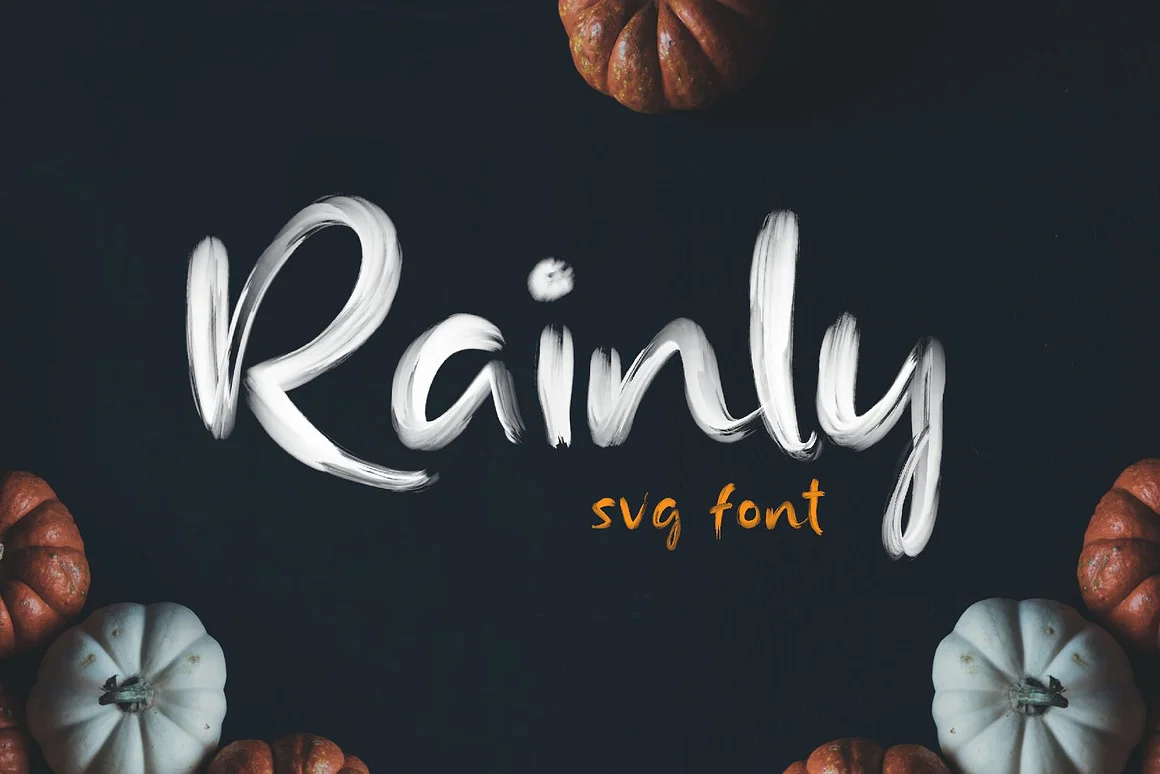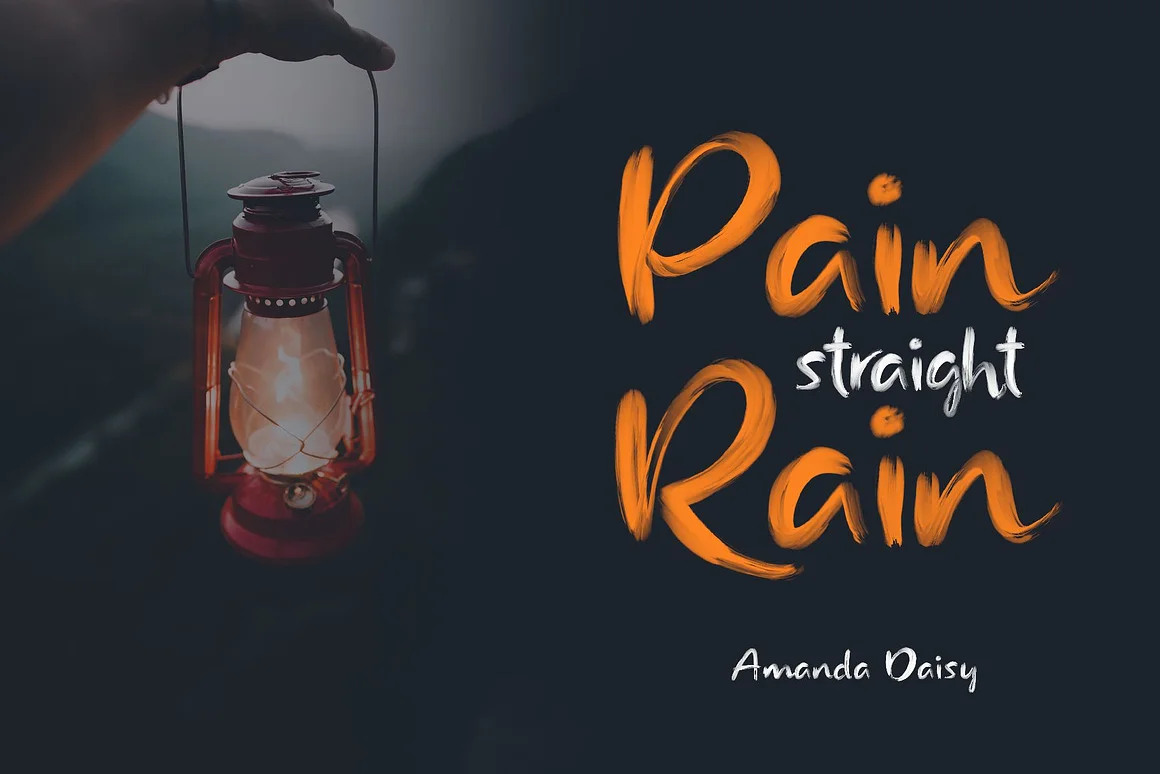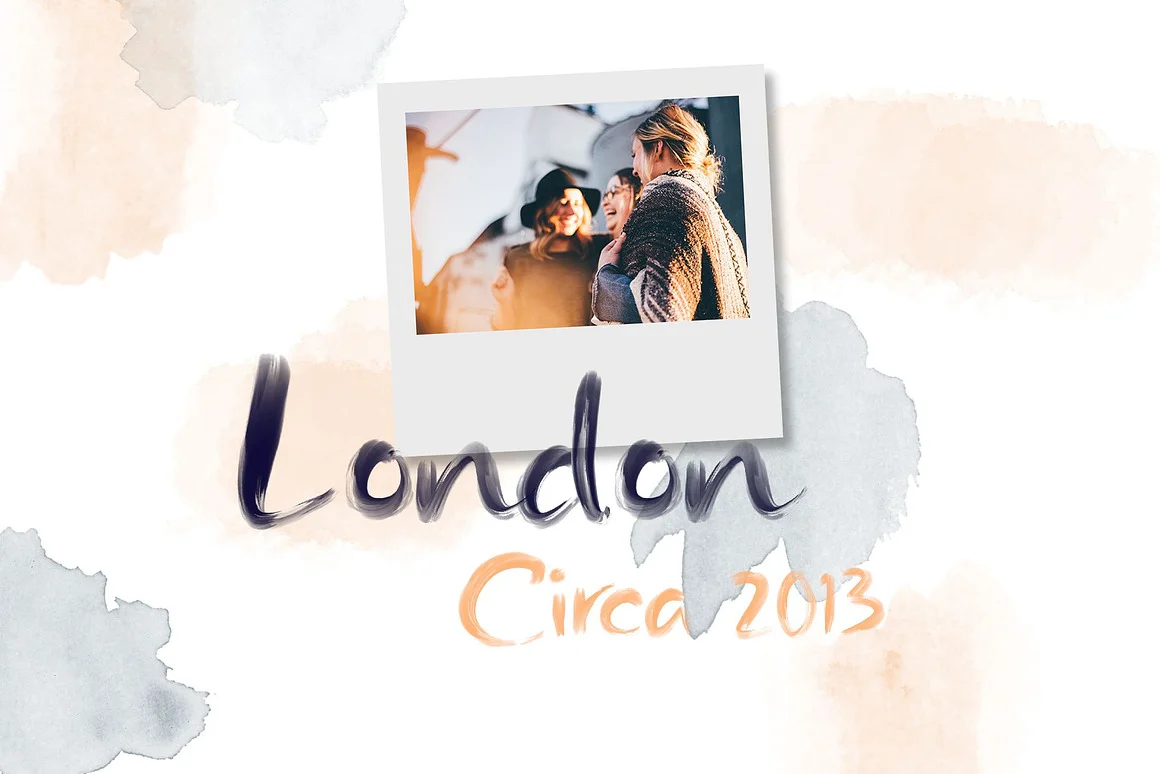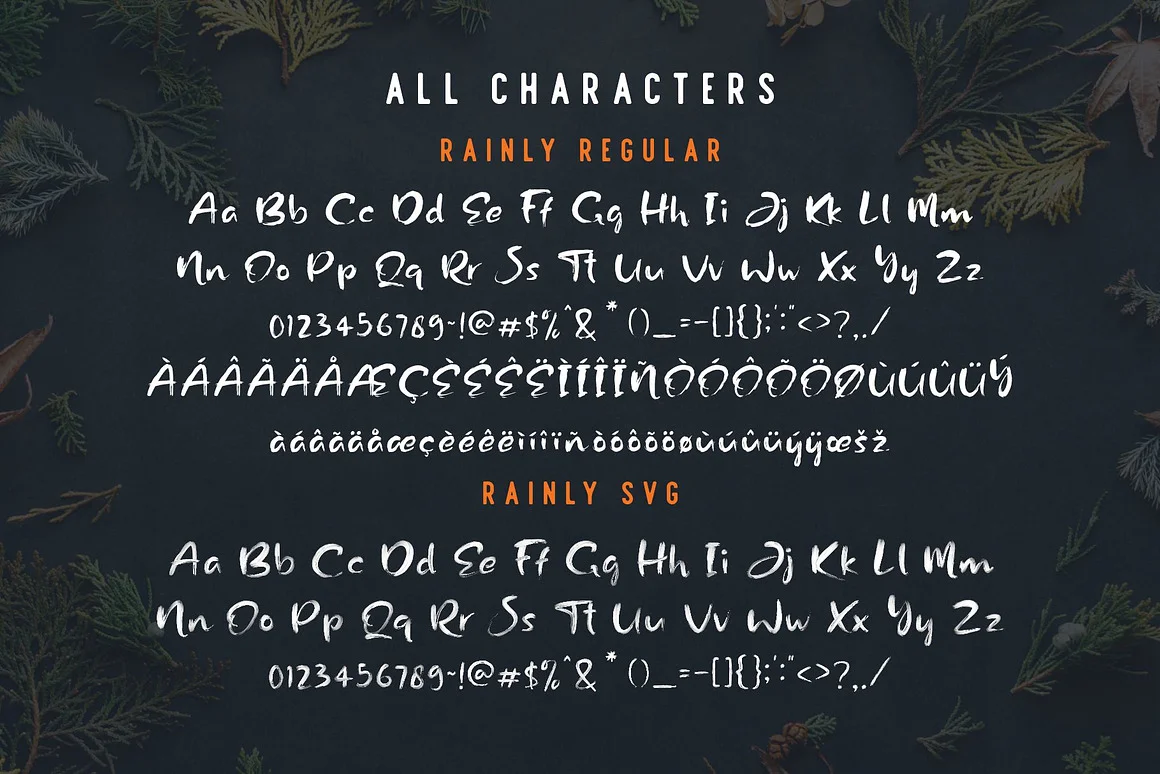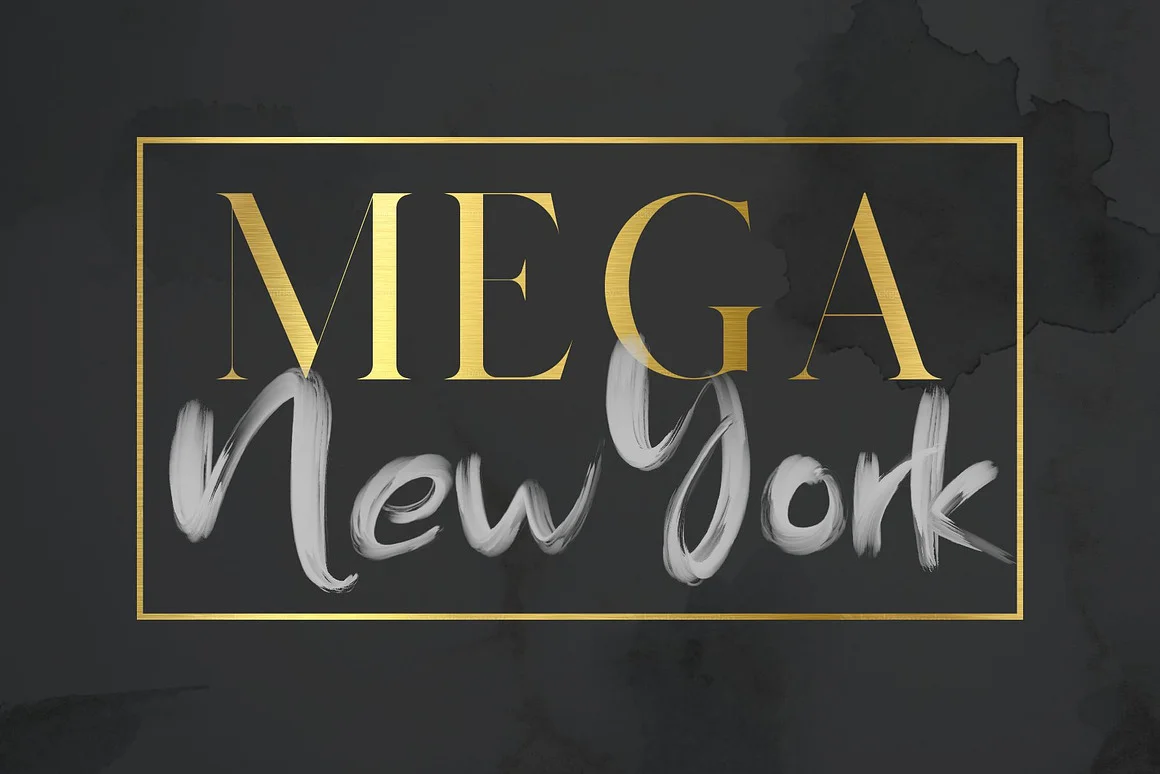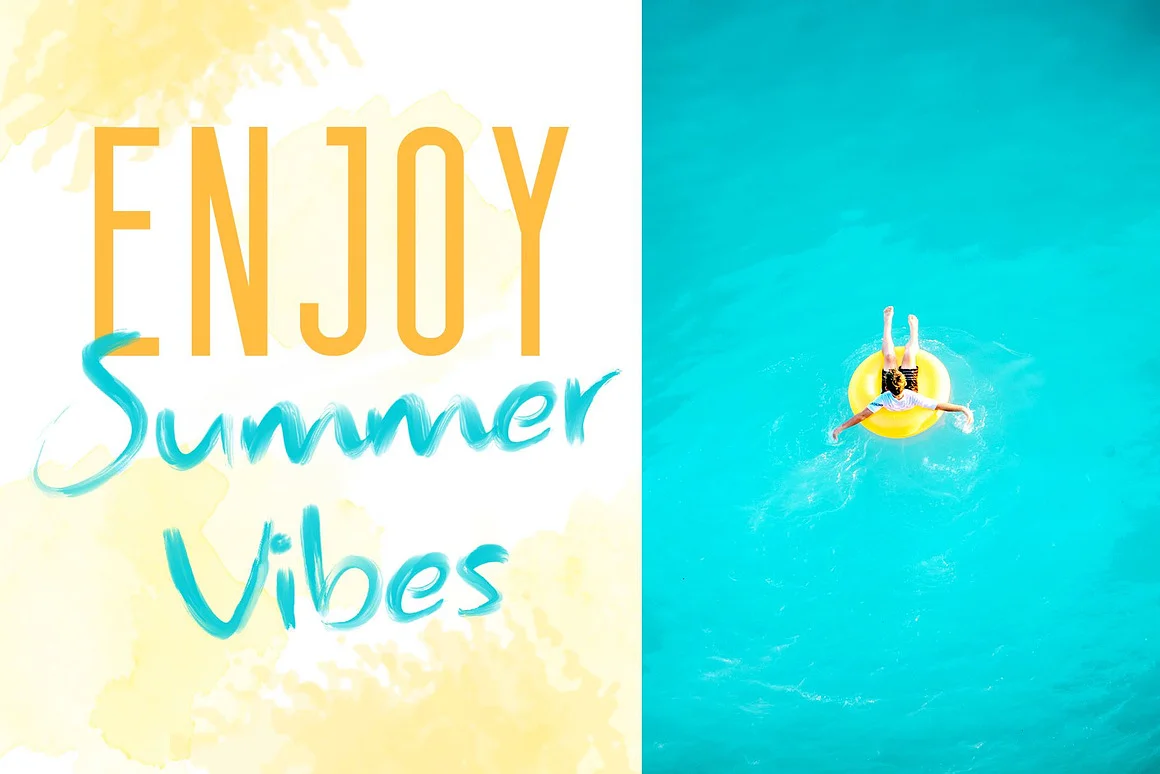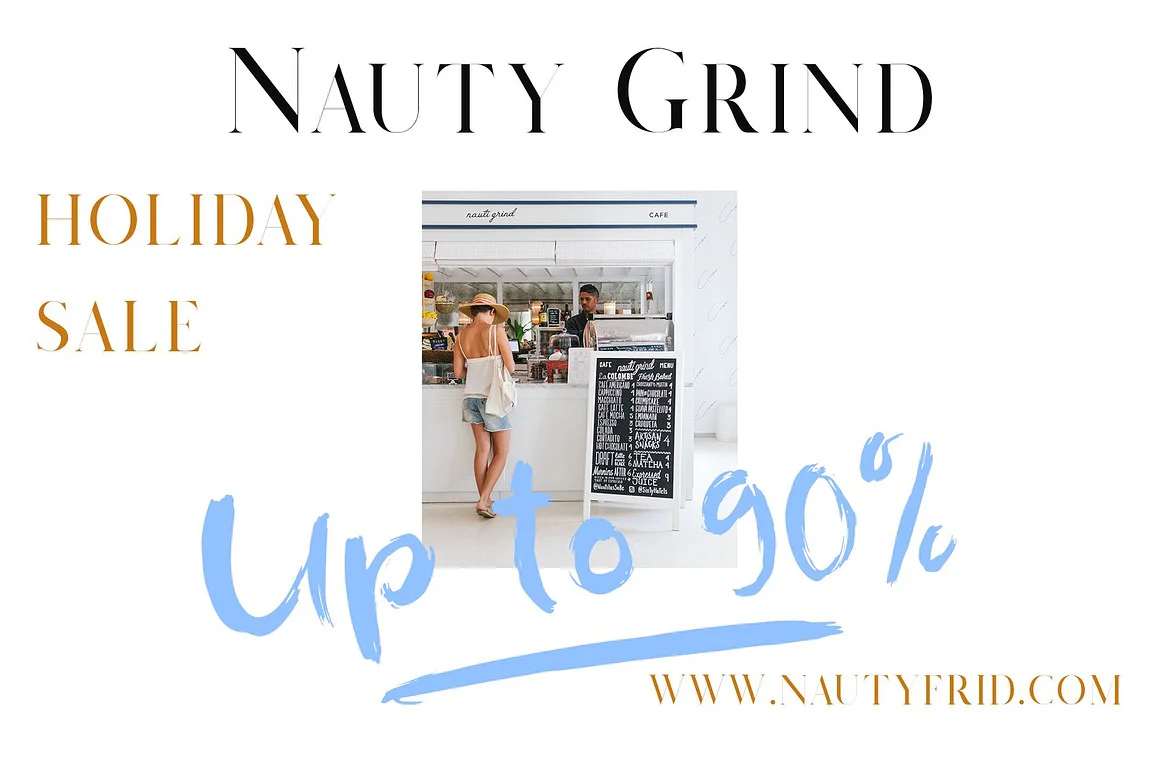
Rainly - Brush & SVG Font
Introducing New Font : Rainly - Brush & SVG Font Introducing Rainly - Brush & SVG Font, we really like the diversity of colors. we also like something modern. we try to combine these 2 things into a work opentype SVG font. Then ..... here it is :) an excellent SVG opentype font for display purposes, Rainly - SVG Font is a attractive contemporary typeface drawn from scratch with brand-new, more vigorous detailing — and SVG variations for multiple use. Rainly - Brush & SVG Font is suitable for Logo, greeting cards, quotes, posters, branding, name card, stationary, design title, blog header, art quote, typography art, modern envelope lettering or book design. Rainly - Brush & SVG Font also suitable for happening style like handdrawn design or watercolor design theme, craft design, any DIY project, book title, wedding font, pop vintage design, or any purpose to make our art/design project look pretty and trendy.